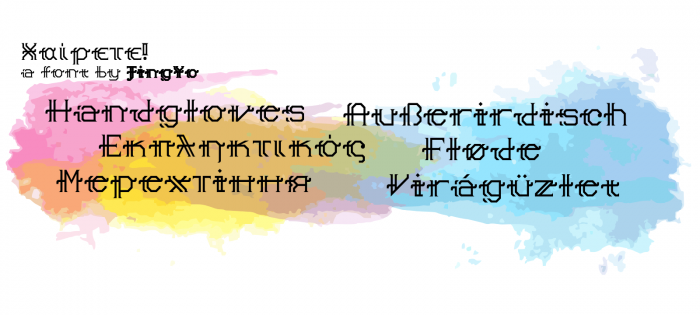
xairete pronounced as /x'erete/, it means hello in Greek
I'll make a Xairete right. Which means the two lines will be on the right side.
i got this idea from a signboard of a store just a 6~7 blocks away from my home.
the fanciest fontstruction i've ever made 'til now XD
so please comment below if your language aren't supported
Well done! What about tags... I'd say it's a display serif (a great one :D)
Beautiful one, with plenty of glyphs!
Sugg. tags: Semi-strike-through, Angular, Hexagonal, Slate, Lines…